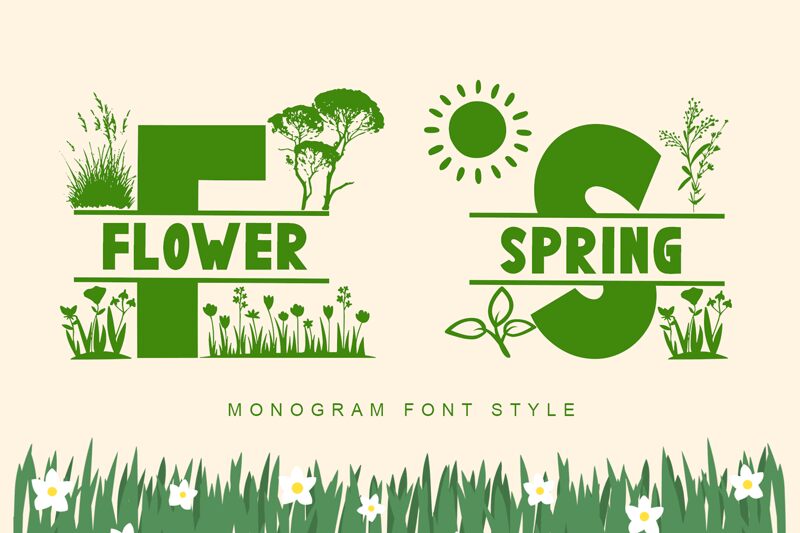
Flower Spring Monogram font family by Yoga Letter includes 2 font styles inspired by their author’s love of fancy and decorative typography. This font family takes on a stylish and modern design, one created using vibrant and energetic visuals suitable for various contemporary, creative platforms. Use it in your branding projects and share fonts that put an extra bold touch that makes the name itself memorable. Remember that small details can make all the difference and with the natural, thematic presentation of Flower Spring Monogram, the difference is contagious.
From modern websites to eco-friendly products, this font family takes inspiration from nature, which is craftily added to any personal or professional platform. Let its geometric design light up your environment with vivid colors as you feature your texts with vibrantly colored backgrounds for a decorated showcase all-around without an overload of visuals. Logos, tags, and labels designed with Flower Spring Monogram will encourage shoppers to buy your natural product so they can go home and pamper themselves.